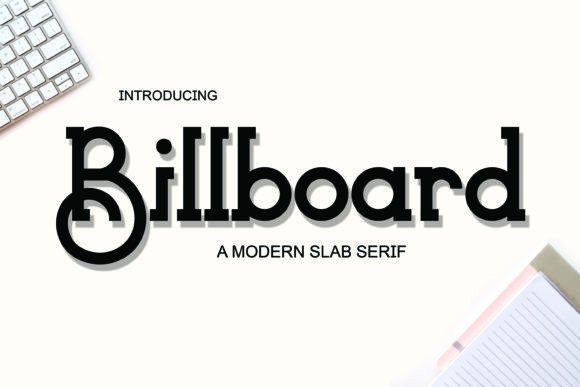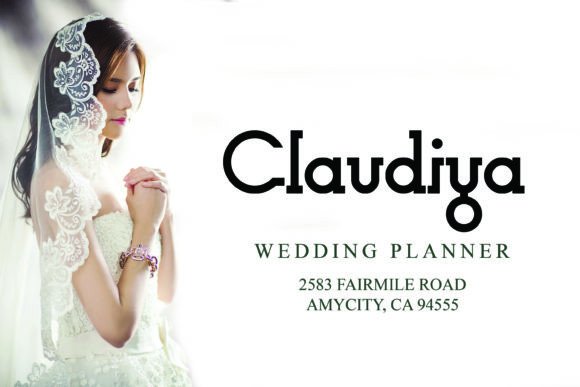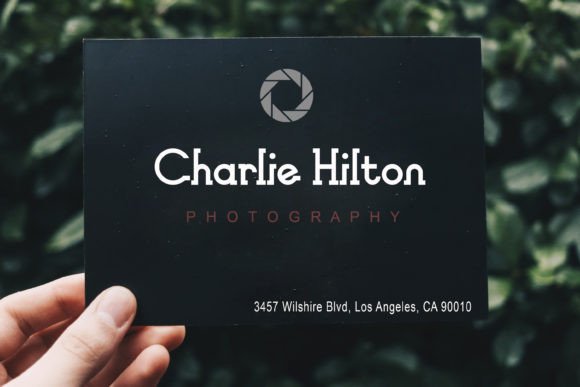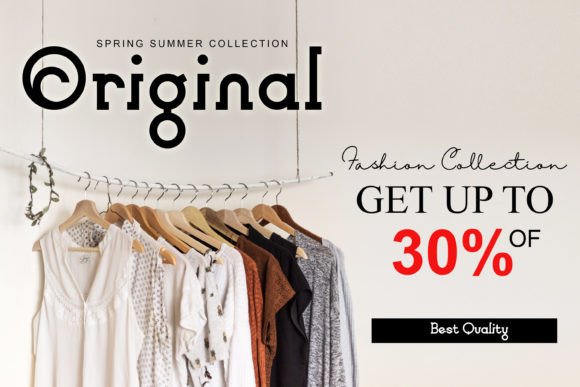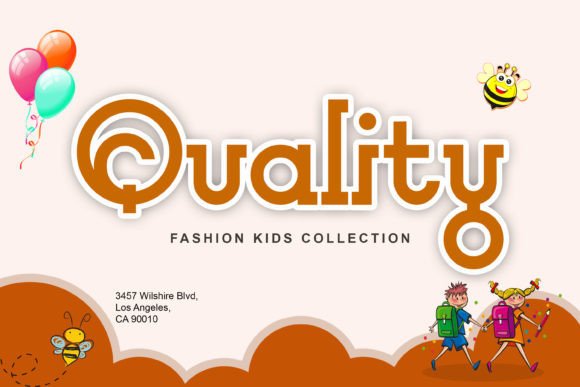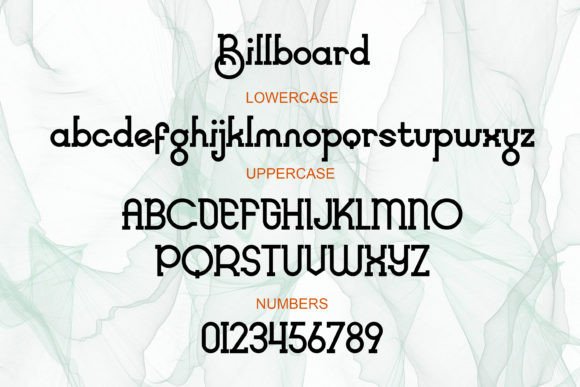
Biliboad: A Modern and Bold Slab Serif Font
Biliboad is a modern, bold, and authentic slab serif font suitable for any branding project like logo, t-shirt printing, export, and many more. It looks outstanding in a wide range of contexts, making it a versatile choice for designers.
Key Features of Biliboad
- Modern Design: Offers a contemporary look suitable for various applications.
- Bold Style: Features strong, impactful letterforms that command attention.
- Authentic Character: Brings a genuine and unique feel to designs.
- Versatile Application: Ideal for both print and digital media projects.
Ideal Uses for Biliboad
Biliboad’s unique characteristics make it particularly well-suited for:
- Logo design and branding
- T-shirt printing and apparel design
- Export and packaging designs
- Poster and advertisement creation
- Web design and digital content
- Social media graphics and content
- Editorial layouts and magazine covers
When incorporating Biliboad into your designs, consider these tips:
- Use for headlines or short blocks of text to showcase its bold style.
- Experiment with different sizes to highlight the font’s distinctive features.
- Consider pairing with simpler sans-serif fonts for body text to create contrast.
- Utilize its modern appearance to create contemporary and impactful designs.
Biliboad is an excellent choice for designers looking to add a modern and bold slab serif font to their typographic toolkit. Its ability to enhance various design projects with its authentic character makes it stand out in the world of typography. Whether you’re working on branding, creating t-shirt designs, or developing content for export, Biliboad offers the perfect blend of style and versatility.
Furthermore, Biliboad’s unique design allows it to shine in various contexts. From logo designs to editorial layouts, this font can elevate your projects with its distinctive style. Its bold yet readable appearance works particularly well in designs that require a strong visual presence while maintaining a contemporary feel.
In conclusion, Biliboad is a font that truly captures the essence of modern design and authenticity in typography. Its ability to work well in both minimalist projects and more elaborate layouts showcases its flexibility. For those looking to add a touch of bold charm to their work, Biliboad can enhance themed creations with its distinctive style. It’s the perfect choice for designers seeking to make a strong, stylish impact across a wide range of creative projects.